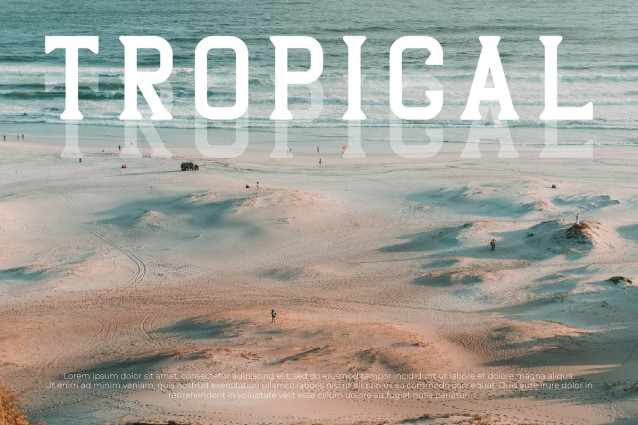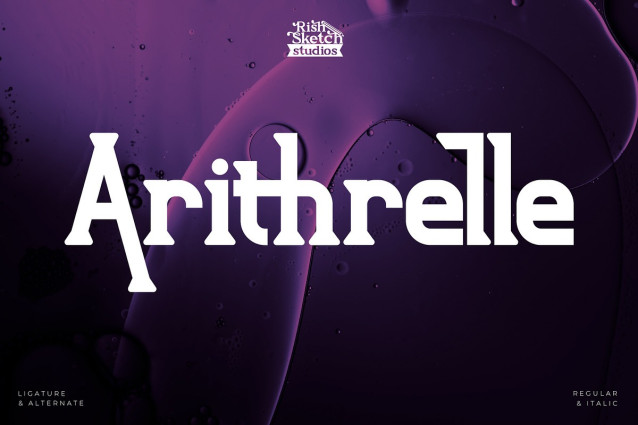
Arithrelle Font
Arithrelle Font – Vintage Serif Font, from Rishsketch Studios, is a premium Vintage Serif Font, perfect for any project that requires a distinctive, and premium feel.